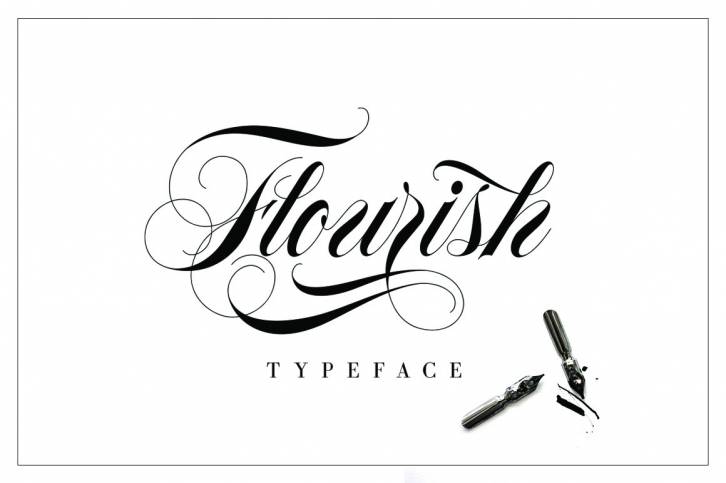
Flourish Typeface
With the new Flourish Typeface every single word becomes magnificent. It is a hot font with lots of alternates and OpenType features, perfect for a design that stands out even if it’s a logo, packaging, web, homeware design or simply a stylish text overlay to any background image.
Flourish Typeface features: